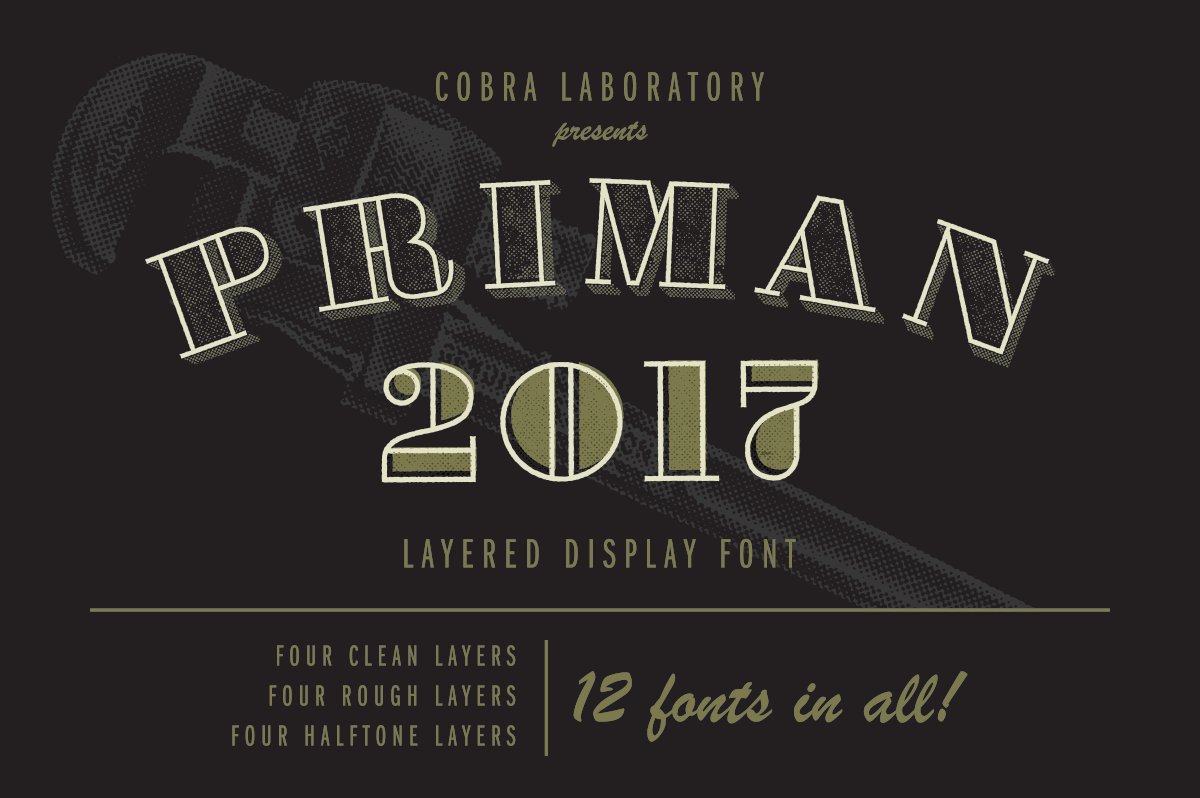
Priman Layered Display Font
Introducing Priman, a layered serif display font from Cobra Labs!
Priman is a thick roman style font that comes in three sets, Clean, Rough, and Extras, all in both ttf and otf.
- Priman Clean includes 4 fonts: Solid, Outline, Fill, and Shadow, with sharp clean edges.
- Priman Rough also includes Solid, Outline, Fill, and Shadow, but with slightly roughed up edges that will show best at larger sizes.
- Priman Extras includes 2 distressed halftone fills and 2 distressed halftone shadows.
Priman is good anyplace you'd like a fat serif type with a bit more personality. I've included a guide with some layering ideas, but there are many more possibilities.
Use either Solid or Outline alone or with fills and shadows. Halftone fills and shadows look great with either Solid or Outline, and also layer well on top of full fills and shadows. Use a fill behind an Outline font and move it a bit to look like off-registration printing. Use two halftones on top of each other - the only rules are there are no rules!